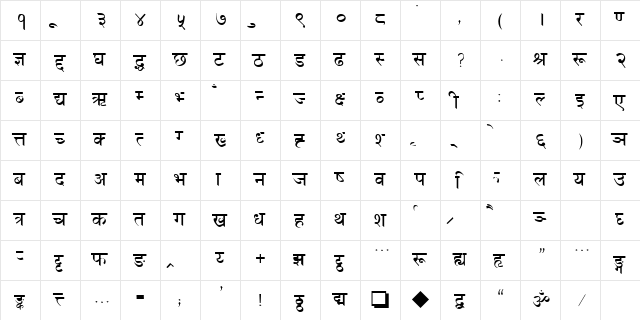
DevanagariBold Regular
Design Context for DevanagariBold Typeface
DevanagariBold is a composed and adaptable typeface that performs quietly and consistently across a wide range of design contexts. Its bold stroke weight gives it real presence on the page.